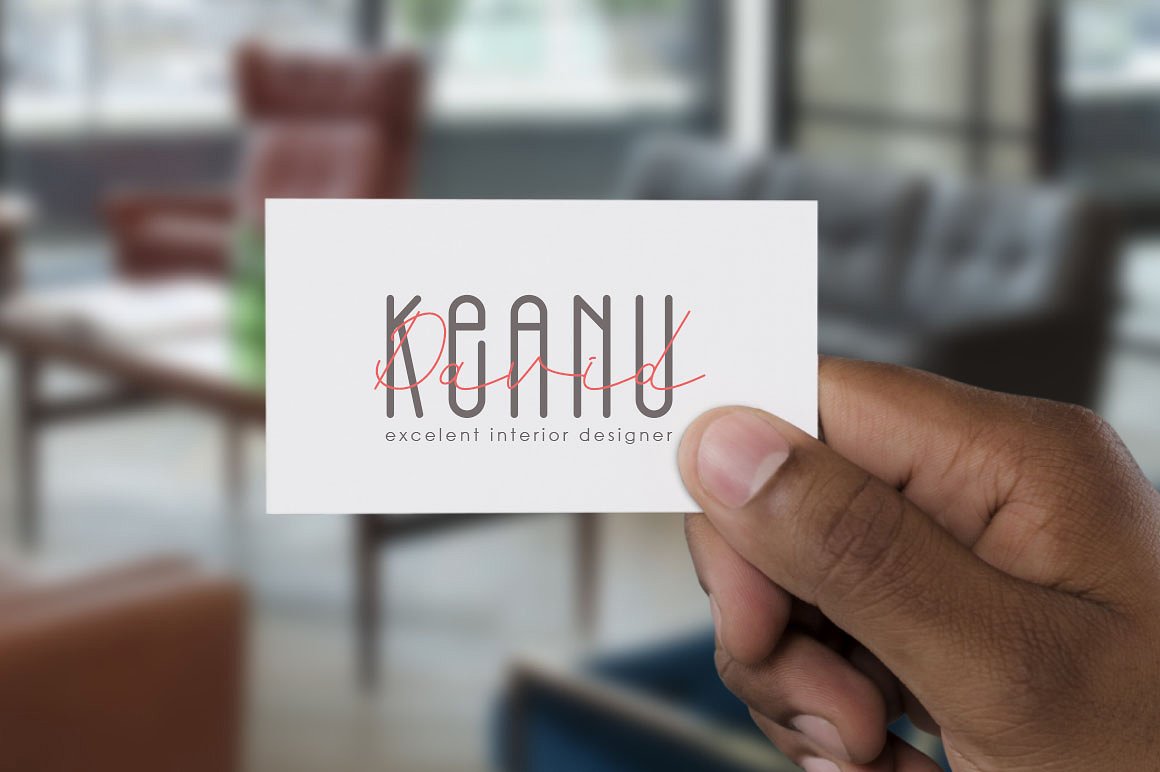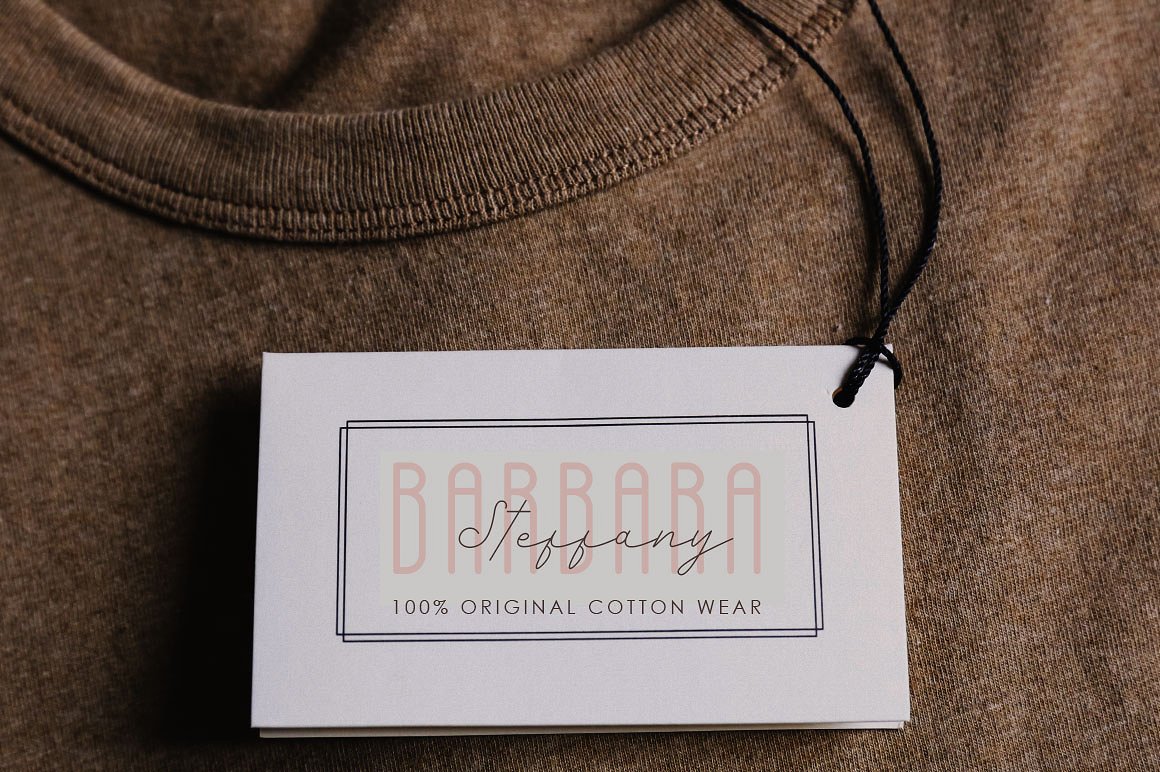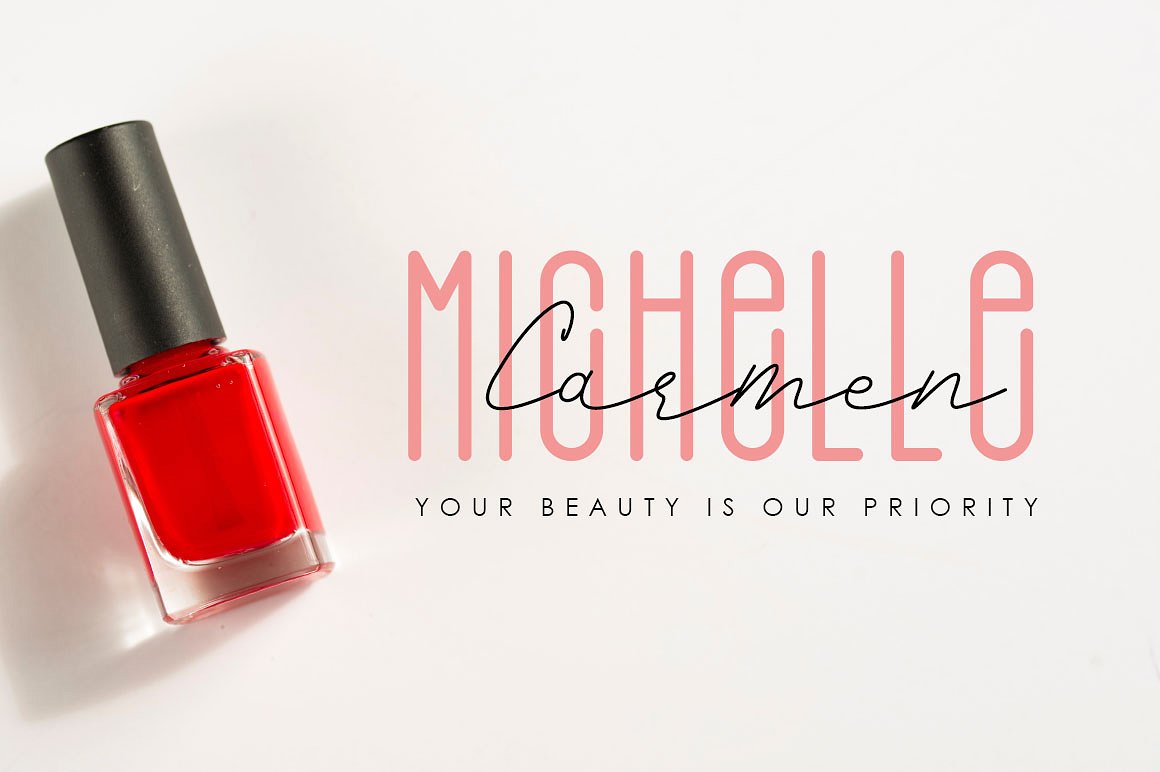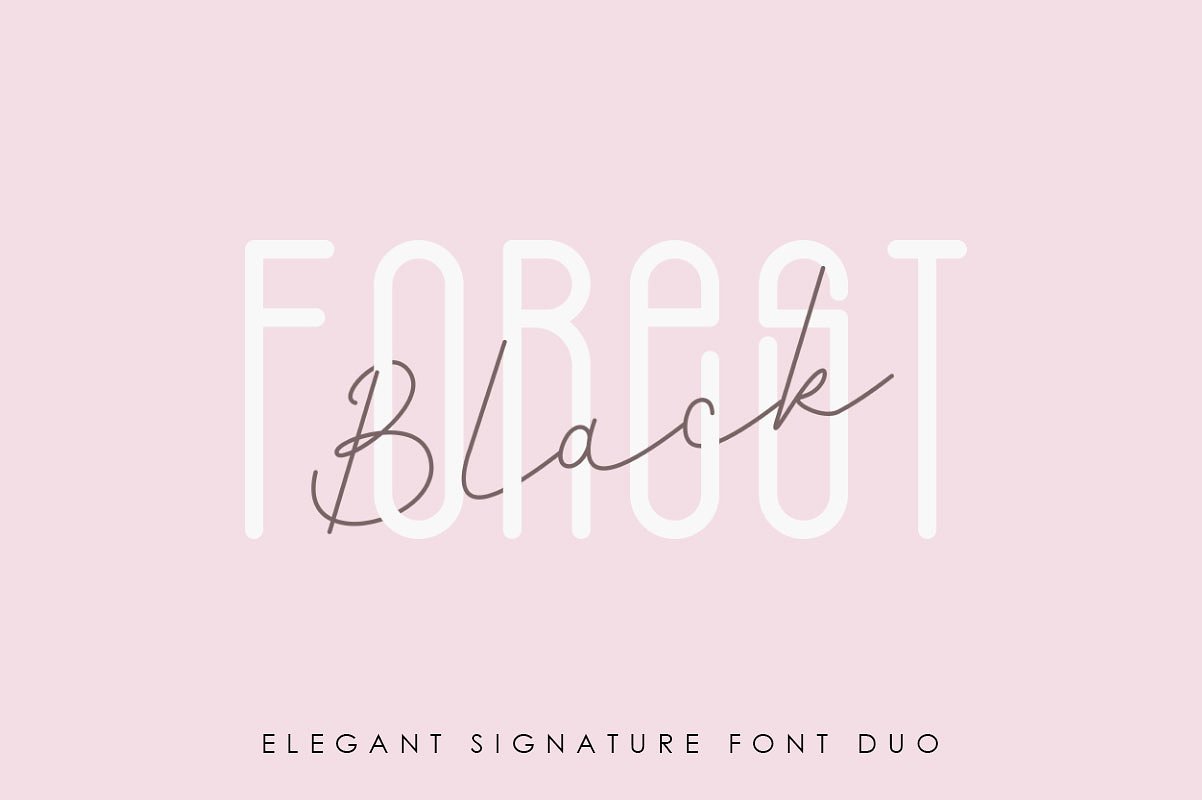
Black Forest Font Duo
A new elegant signature font duo. Introducing Black Forest. It is designed by Haksen, this is a premium font, are sold on creativemarket, but it was great, it is free today for download. Black Forest is a beautiful high fashion font duo that makes for gorgeous logos, posters, wedding invitations, blog posts, social media, and more! Black Forest Script includes ligatures to make everything look totally hand-done, and alternates for each letter.